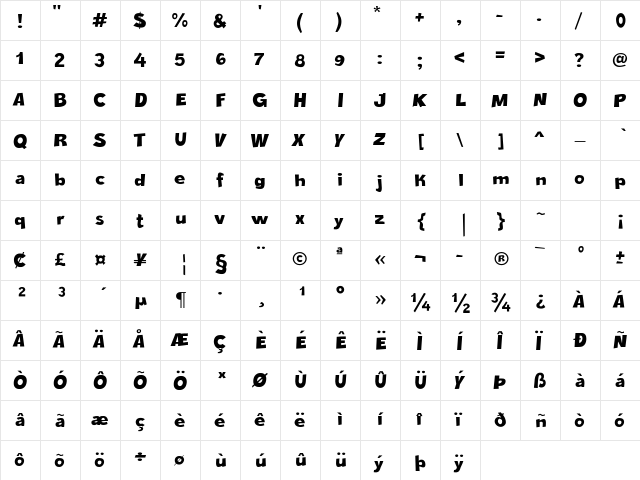
Crazy Krabs Regular
Design Context for Crazy Krabs Typeface
Crazy Krabs offers clean, dependable letterforms without strong stylistic allegiance, making it a practical choice for designers who need flexibility.